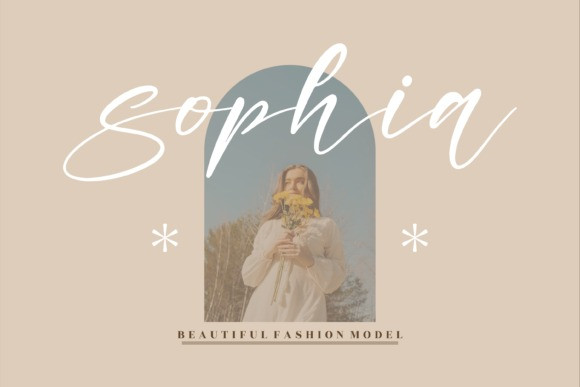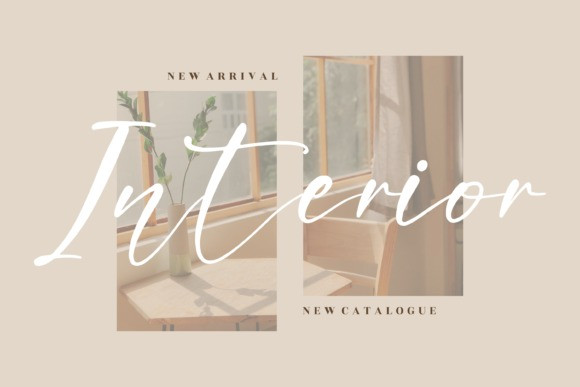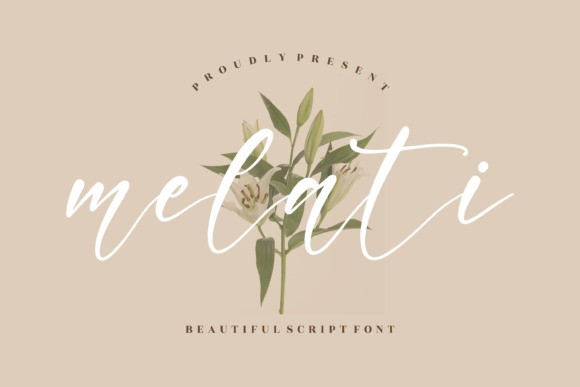
Melati Handwriting Font
Melati Handwriting Font is a beautiful script font suitable for any projects such as logos, branding projects, homeware designs, product packaging, mugs, quotes, posters, shopping bags, t-shirts, book covers, name cards, invitation cards, and greeting cards. It’s also a perfect fit for labels, photography, watermark, special events, and all your other lovely projects that need a beautiful script taste.